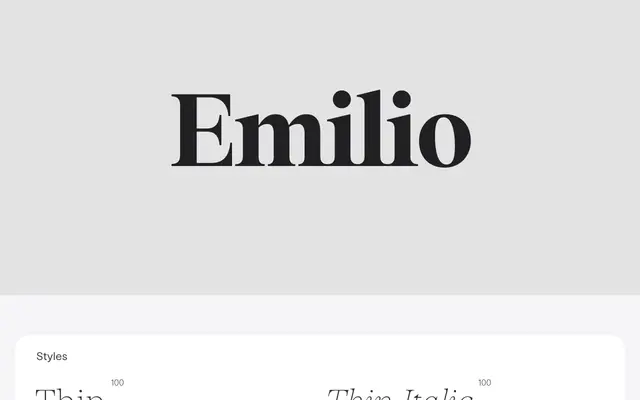
A 14-style old-style serif with calligraphic details and an eighties advertising flavour, suited to editorial and branding work.
Taking cues from the advertising serifs of the 1980s, particularly Times and Garamond, Emilio introduces modern touches such as reductive calligraphic stroke endings and distinctive K and R leg forms. Seven weights from Thin to Black each carry a matching italic, and a variable font is included in the bundle. A large x-height and modest contrast keep it readable at small sizes, while the display weights are the clearest expression of its character.
Emilio draws from old-style serif models such as Times and Garamond, with calligraphic details and a high x-height that place it in the humanist old-style tradition, updated with reductive modern elements.